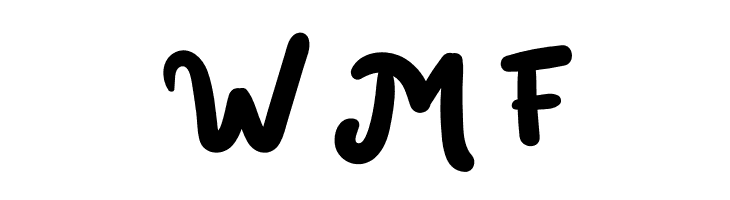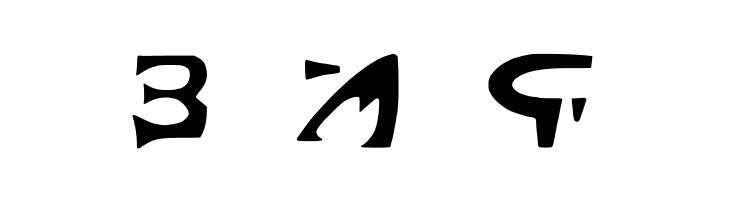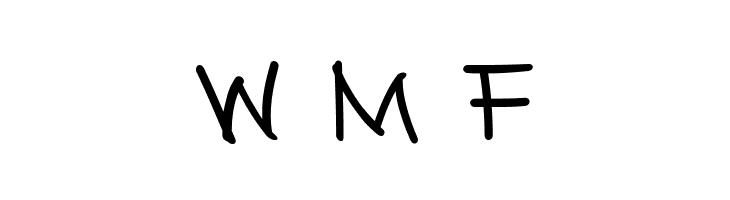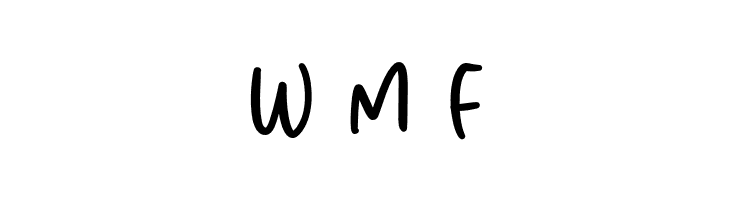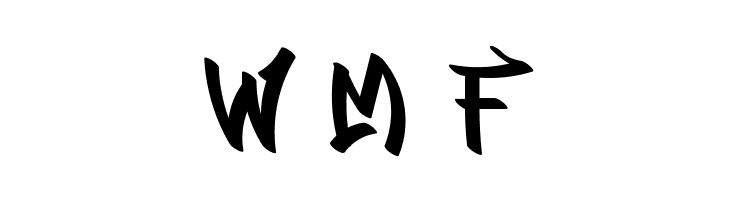
Marker SD Font
Font by Steve Deffeyes - www.deffeyes.com
A playful, handwritten marker-style font with bold, rounded characters.
Marker SD Italic Font
Font by Steve Deffeyes - www.deffeyes.com
A casual, handwritten font with a slight slant and smooth, rounded characters.
Marker__G Font
A bold, rounded, and playful font with a hand-drawn appearance.
MARKER_CRE Font
fredcre.free.fr
A playful, bold, and handwritten-style font with a casual and friendly appearance.
MARKER-NO2HUN Font
A bold, hand-drawn font with a graffiti-like, energetic style.
Marker2 Font
A bold, playful font with a hand-drawn, informal style.
Markera Font
A bold, playful handwritten font with thick strokes and rounded edges.
Markera Gravity Font
A bold, graffiti-inspired font with a playful, hand-drawn style.
MarkerFeltThin-Plain Regular Font
A playful, handwritten font with a bold, marker-like appearance.
MarkerFeltWide-Plain Regular Font
A bold, playful font with a hand-drawn, marker-like appearance.
MarkerFinePoint-Plain Regular Font
A playful, handwritten-style font with consistent stroke thickness and a casual feel.
Markerland Regular Font
A bold, hand-drawn font with a playful, marker-like style.
markerMoe II Font
Font by joeBob graff-X
A bold, brush-style font with expressive, textured strokes.
markerMoe II Font
A bold, brushstroke-style font with expressive, hand-painted characters.
MarkerMoeII Font
Font by joeBob graff-X
A bold, brush-stroke style font with dynamic and expressive characters.
MarkerNo3HUN Font
A bold, angular font with a futuristic and edgy design.
MarkerNo3HUN Bold Font
A bold, angular font with a modern, geometric style.
MarkerNo3HUN Drip Font
A bold, dripping decorative font with high contrast and sharp edges.
MarkerNo3HUN Rough I Font